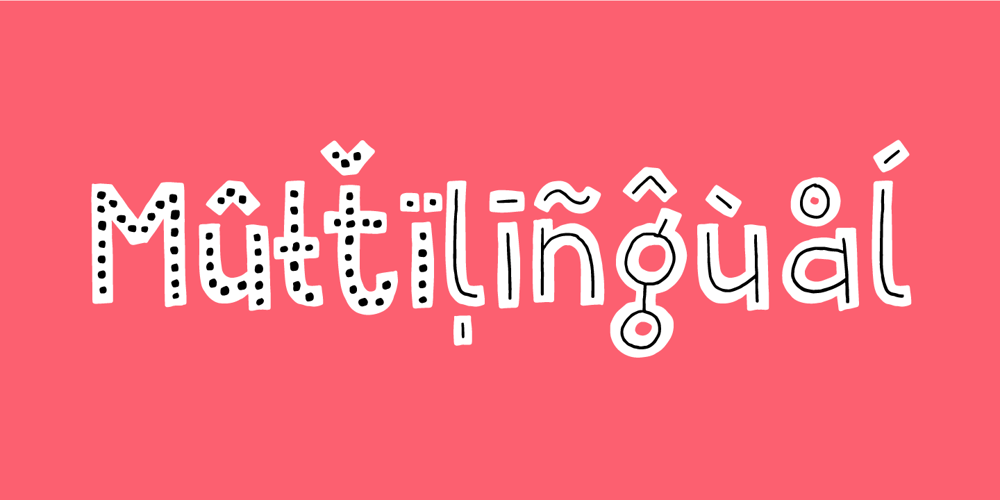
Jealous Punk Font Family was designed by Jakob Fischer and published by Bogstav. Jealous Punk contains 5 styles and family package options. Here’s a font that would love to play with your designs! Especially the ones where kids toys or packaging is involved – but feel free to play around with the 5 different versions with your other designs!